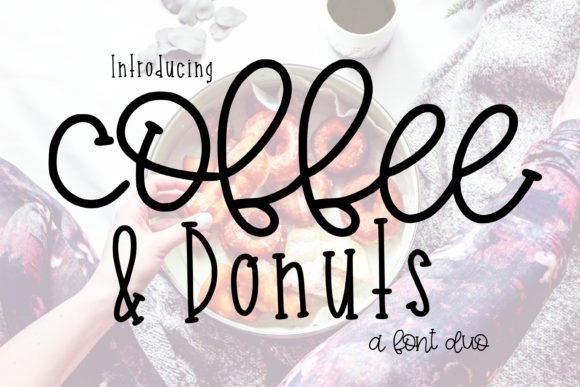
Introduction to Coffee & Donuts Font
Get ready to indulge in some creative sweetness with the Coffee & Donuts font duo.
This playful pair of fonts is like the perfect combo of your favorite morning treat The whimsical β€œCoffee” script brings a swirl of charm and the β€œDonuts” font adds a dash of simplicity with its casual style.